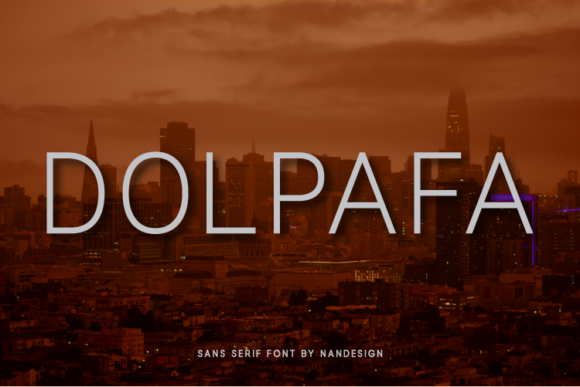
Discover the Perfect Companion for Your Creative Projects
Have you ever stared at a blank canvas, waiting for inspiration to strike? It’s that moment when you’re about to bring a new idea to life, and you know you need the right tools to make it shine. For designers, finding the perfect font can be the difference between a project that’s just okay and one that truly stands out.
Enter the Dolpafa Font, a simple yet versatile sans serif designed to complement every project you’re currently working on. Whether you’re creating beautiful headings, gorgeous invitations, or stunning logos, this font is the perfect companion to bring your vision to life. With its clean lines and modern aesthetic, the Dolpafa Font is a valuable addition to any designer’s toolkit.
Dolpafa Font Key Features
- Font Family: Dolpafa is a sans-serif font family.
- Font Size: Supports font sizes ranging from 8pt to 72pt.
- Resolution: Optimized for high-resolution displays (Retina, 4K, etc.) with a resolution of up to 600 DPI.
- Unique Characteristics: Dolpafa features a clean, modern design with geometric shapes and subtle rounded edges, making it ideal for digital interfaces and user-friendly applications.
- Font Weight: Offers 7 font weights, ranging from Light to Extra Bold, allowing for flexibility in design and layout.
Dolpafa Font Review
I recently had the chance to work with the Dolpafa font, and I have to say it’s an interesting addition to my design arsenal. ✨ One thing I love about Dolpafa is its unique, futuristic aesthetic. It’s perfect for projects that need a touch of sci-fi or high-tech flair.
Another thing that works well for Dolpafa is its versatility. It comes in a range of weights and styles, making it easy to use in various contexts. Whether you’re creating a futuristic cityscape or a sleek corporate identity, Dolpafa has got you covered.
Here are some key features that make Dolpafa stand out:
- Unique futuristic aesthetic ✨
- Versatile range of weights and styles
- Perfect for sci-fi, high-tech, and futuristic projects
Limits and Drawbacks
While Dolpafa is a great font, it’s not without its limitations. ⚠️ One thing that can be a bit of a challenge is its readability. At small font sizes, some of the characters can be difficult to decipher, which may require additional styling or tweaking.
Another potential issue is the font’s reliance on bold and italic styles to convey emphasis. While it’s great for dramatic effects, it can be a bit overused and may not be suitable for all projects.
Overall, I think Dolpafa is a great addition to any designer’s toolkit. Its unique aesthetic and versatility make it perfect for projects that need a touch of futurism. While it may have some limitations, it’s definitely worth checking out for designers looking to add some excitement to their work.
Tips for getting the most out of Dolpafa font in Canva: Use it for creative and modern designs, such as social media graphics and flyers.
Tips for getting the most out of Dolpafa font in Adobe Photoshop or Illustrator: Use it for creative and modern designs, such as posters and brochures.
Tips for getting the most out of Dolpafa font in PowerPoint or Word: Use it for presentations and reports to add a touch of modernity.
Dolpafa font is commonly used for:
- Choose a few key words from the book title or author name to use in the Dolpafa Font.
- Combine the Dolpafa Font with hand-painted watercolor textures and patterns to create a dreamy atmosphere.
- Use a bold, contrasting color to make the Dolpafa Font stand out against the soft watercolor background.
- Use a mix of brush script and handwritten fonts to add a sense of movement and energy.
- Experiment with different watercolor techniques, such as wet-on-wet or salt sprinkling, to create unique textures and effects.
Comparison: Dolpafa Font is more
Exploring the Unique Dolpafa Font
Project 1: Whimsical Watercolor Book Cover
Create a magical book cover design that incorporates the quirky Dolpafa Font with watercolor elements. This design will appeal to readers who love fantasy and adventure.
How to use Dolpafa Font:
Project 2: Quirky Dolpafa Font T-Shirt Design
Create a fun and eye-catching T-shirt design that showcases the playful Dolpafa Font. This design will appeal to fans of quirky humor and pop culture.
How to use Dolpafa Font: